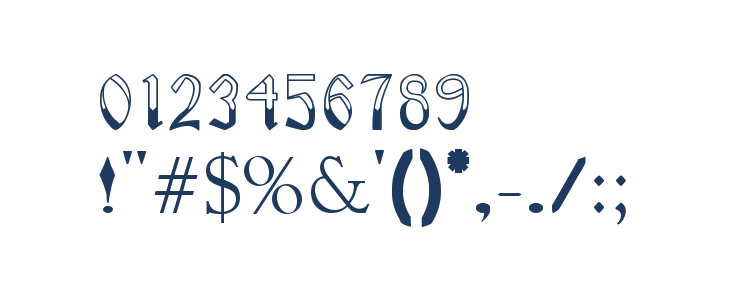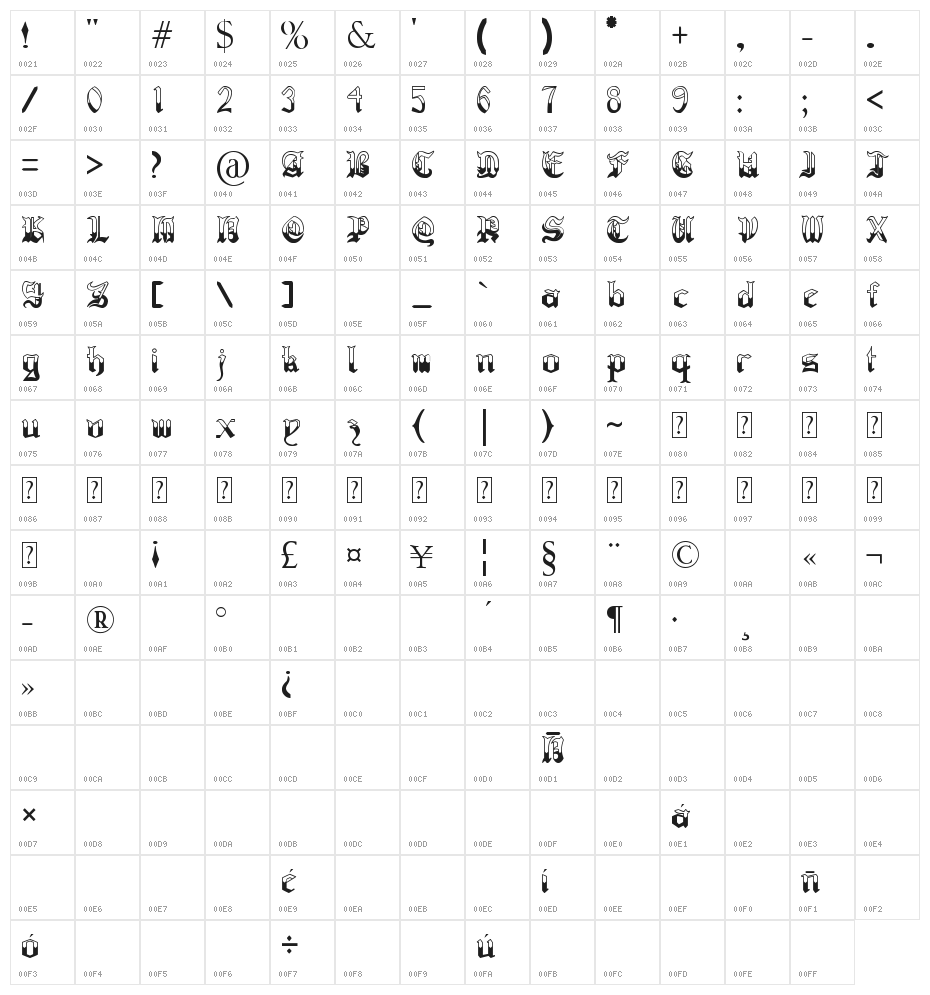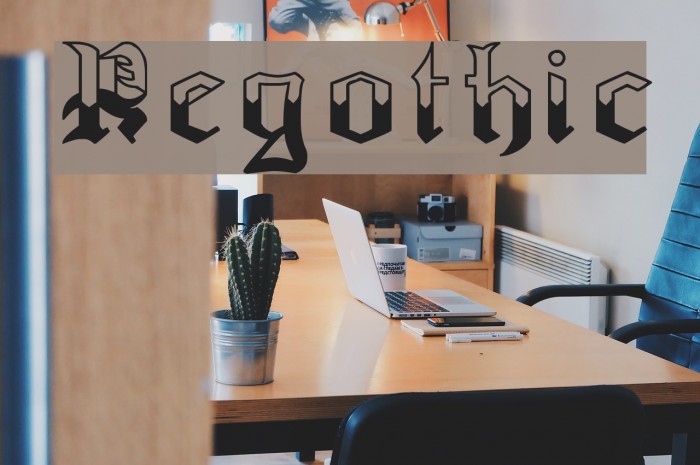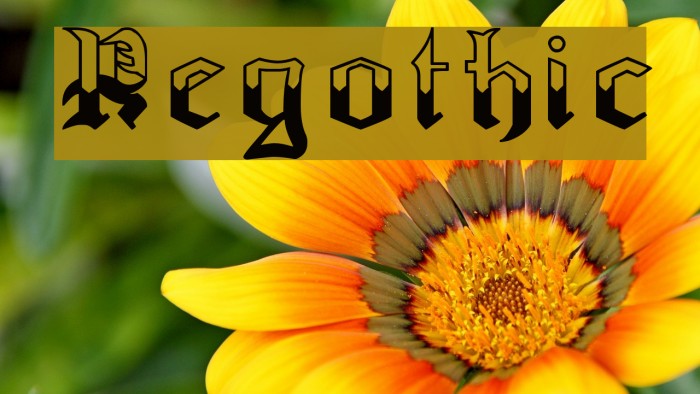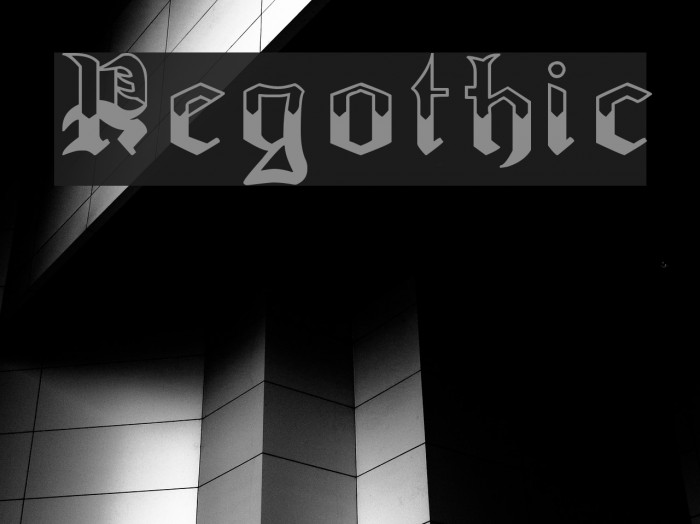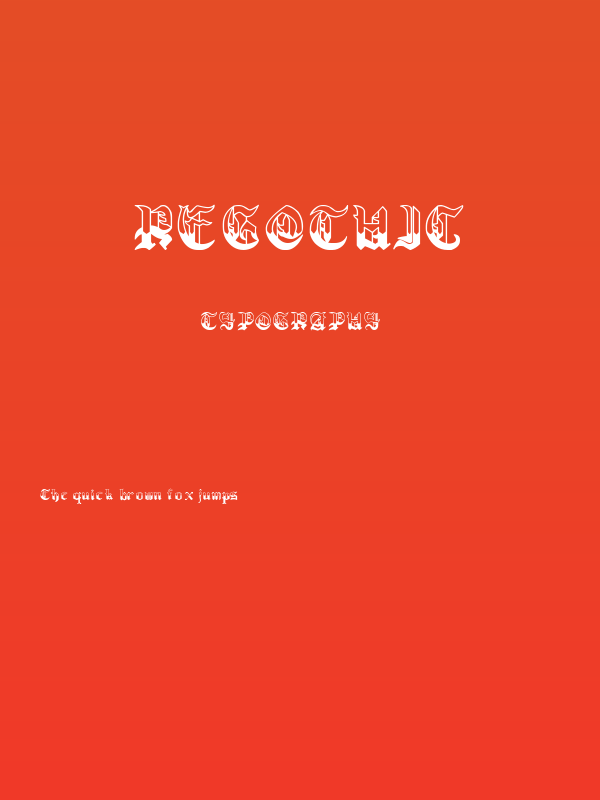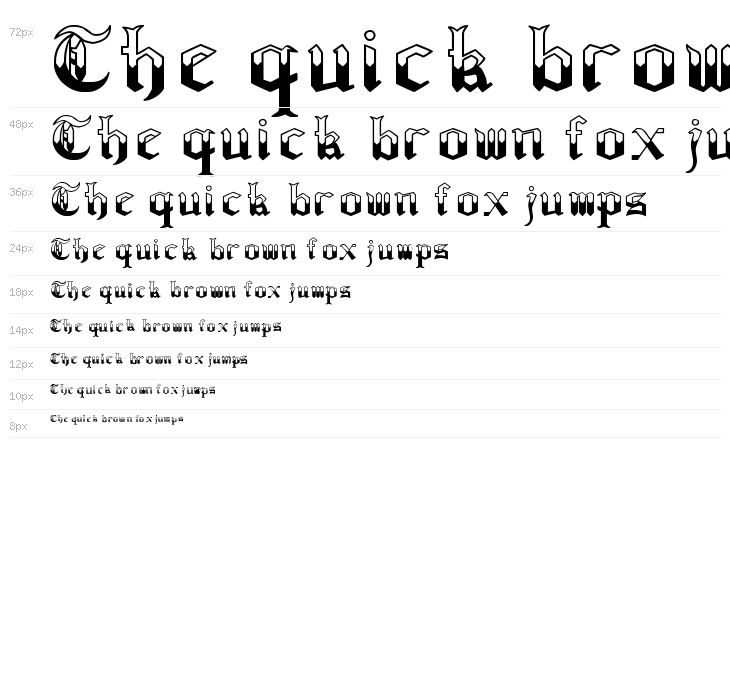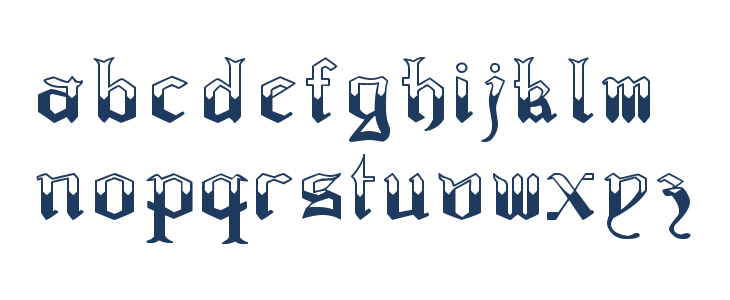
Regothic Font
| Kategorien | Gothic |
| Gesamtstil | Vintage |
| Anwendungsfall | Headlines, Logos, Decorative text |
| Vorgeschlagene Projekte | Ideal for historical or fantasy-themed projects, book covers, posters, and branding that requires a dramatic and elegant touch. |